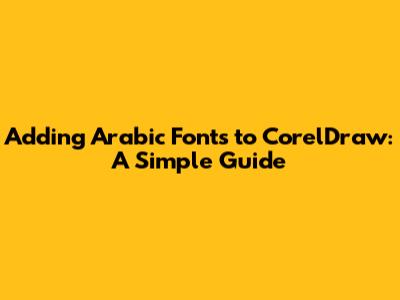
- Garbled Text: If you see squares or random characters instead of Arabic letters, it usually means the font isn't properly installed or CorelDraw isn't using the right text engine. Double-check your font installation and language settings, as described above. Make sure that the font is activated and that CorelDraw is set to use the correct language. You can also try clearing CorelDraw's font cache, as mentioned earlier. If the problem persists, try a different Arabic font to see if the issue is specific to a particular font.
- Incorrect Text Direction: If the text flows from left to right instead of right to left, make sure you've set the text direction to Right-to-Left in the Paragraph Formatting docker. This is a common mistake, so it's always worth double-checking. Also, make sure that the text frame or text box is properly aligned to the right. Sometimes, the text direction can be overridden by the alignment settings. If you're still having trouble, try creating a new text frame and copying the text into it. This can sometimes resolve issues with text direction.
- Missing Ligatures: Ligatures are special characters that combine two or more letters. If they're not displaying correctly, it could be a font issue or a CorelDraw setting. Check the font's documentation to see if it supports ligatures and how to enable them. In CorelDraw, you may need to enable ligatures in the OpenType features settings. Go to Text > OpenType Features and make sure that
Hey guys! Ever struggled with adding Arabic fonts to CorelDraw? It can be a bit tricky, but don't worry, I've got you covered. In this guide, we'll walk through the steps to get those beautiful Arabic scripts working perfectly in your designs. Let's dive in!
Understanding Arabic Font Compatibility with CorelDraw
Before we jump into the how-to, let's talk about why this can be a challenge. Arabic fonts, with their intricate ligatures and right-to-left writing direction, sometimes don't play nice with all software. CorelDraw is generally pretty good, but there are a few things to keep in mind to ensure everything runs smoothly. First off, make sure you're using a version of CorelDraw that supports Unicode. Unicode is the universal character encoding standard, and it's essential for displaying Arabic characters correctly. Older versions might not have full support, leading to gibberish instead of elegant script. Secondly, the font itself matters. Not all Arabic fonts are created equal. Some are better optimized for digital use than others. Look for fonts that are specifically designed for graphic design and have good reviews. This can save you a lot of headaches down the line. Lastly, understanding how CorelDraw handles text is crucial. CorelDraw treats text as objects, which means you have a lot of control over its appearance. However, this also means you need to be mindful of how the text is formatted. Things like text direction, character spacing, and font rendering settings can all impact how your Arabic text looks. So, before you even start typing, take a moment to familiarize yourself with these settings. It's also a good idea to test different fonts and settings to see what works best for your specific project. Trust me, a little bit of preparation can save you a lot of frustration later on. Understanding these basics will make the process of adding and using Arabic fonts in CorelDraw much smoother and more enjoyable.
Step-by-Step Guide to Installing Arabic Fonts
Okay, let's get to the nitty-gritty. Here’s how to install Arabic fonts on your system so CorelDraw can use them:
Follow these steps, and you should have your Arabic fonts ready to roll in CorelDraw! Remember to keep your font library organized and always download fonts from trusted sources to avoid any potential problems.
Configuring CorelDraw for Arabic Text
Now that you've installed the fonts, let's tweak CorelDraw to handle Arabic text correctly. This involves adjusting a few settings to ensure that the text flows from right to left and that the characters are displayed properly. First, go to Text > Paragraph Formatting. In the Paragraph Formatting docker, you'll find options for text direction. Set the text direction to Right-to-Left. This will ensure that your Arabic text flows correctly. Next, check your language settings. Go to Text > Writing Tools > Language. Make sure that Arabic is selected as the language. This will help CorelDraw with spell checking and hyphenation, although these features may not be fully supported for Arabic. Another important setting is the text engine. CorelDraw uses different text engines for different languages. Make sure that the correct text engine is selected for Arabic. This setting can usually be found in the program's options or preferences. Experiment with different text engines to see which one works best for your fonts and project. You may also want to adjust the character spacing and kerning settings. Arabic text often requires different spacing than Latin text. Use the character spacing and kerning tools in CorelDraw to fine-tune the appearance of your text. Pay attention to the ligatures, which are special characters that combine two or more letters. Make sure that the ligatures are displayed correctly and that they don't overlap or appear distorted. Finally, remember to save your settings as a preset or template. This will save you time in the future when you're working with Arabic text. You can create different presets for different types of projects or fonts. By configuring CorelDraw correctly, you can ensure that your Arabic text looks its best and that you have a smooth and efficient workflow.